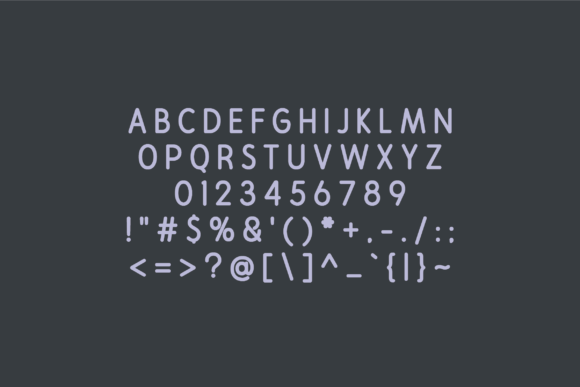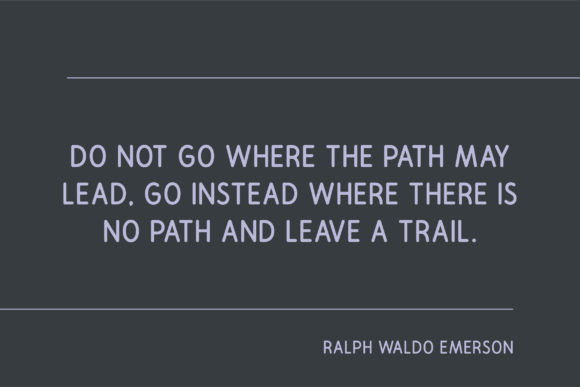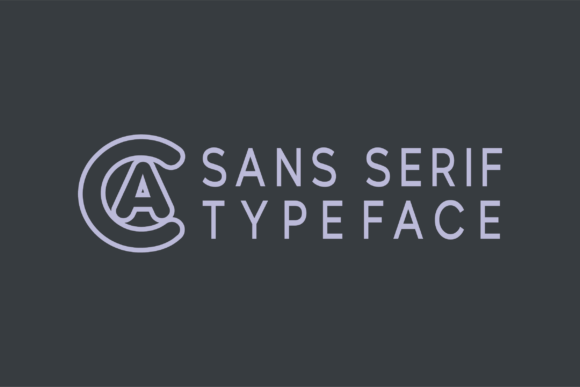
Discover the Elegance of Furberry Font: A Modern Sans Serif for Creative Projects
I’ll never forget the moment I stumbled upon the perfect font for a wedding invitation project. I had been searching for hours, trying out different typefaces, but none seemed to fit the bill. That was until I discovered Furberry, a modern, classy sans serif font that instantly elevated my design. In this article, I’ll share my experience with Furberry, its features, and how to make the most of this versatile font in your creative projects.
What Makes Furberry Special?
Furberry is a sans serif typeface that boasts upper characters, numbers 0-9, and a range of punctuation and symbols. Its clean and elegant design makes it perfect for a variety of applications, including logos, weddings, invitations, quotes, advertisements, print, magazines, and more!
An Honest Review of Furberry
The Good: What I Love About Furberry ✨
- ✅ Extremely versatile and adaptable to different design contexts
- ✅ Clean and elegant sans serif design
- ✅ Comprehensive character set, including upper characters, numbers, and punctuation
- ✅ Perfect for both digital and print applications
The Not-So-Good: Small Quirks or Limitations 🤔
- ⚠️ Limited italic or oblique variations (but not necessary for all designs)
- ⚠️ Some users may find the font too minimalist or lacking decorative elements
Similar Fonts or Alternatives to Furberry
The Backstory of Furberry: Designer Inspiration
Furberry was designed with the goal of creating a modern, classy sans serif font that would be versatile and adaptable to different design contexts. The designer drew inspiration from classic sans serif typefaces, while incorporating contemporary elements and a clean aesthetic.
Q: Is Furberry suitable for body text?
A: While Furberry is a beautiful font, it may not be the best choice for body text due to its clean and elegant design. However, it can be used for short paragraphs or captions.